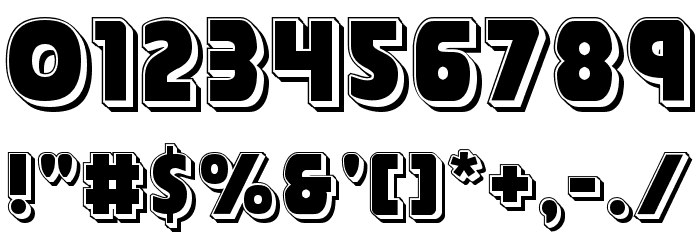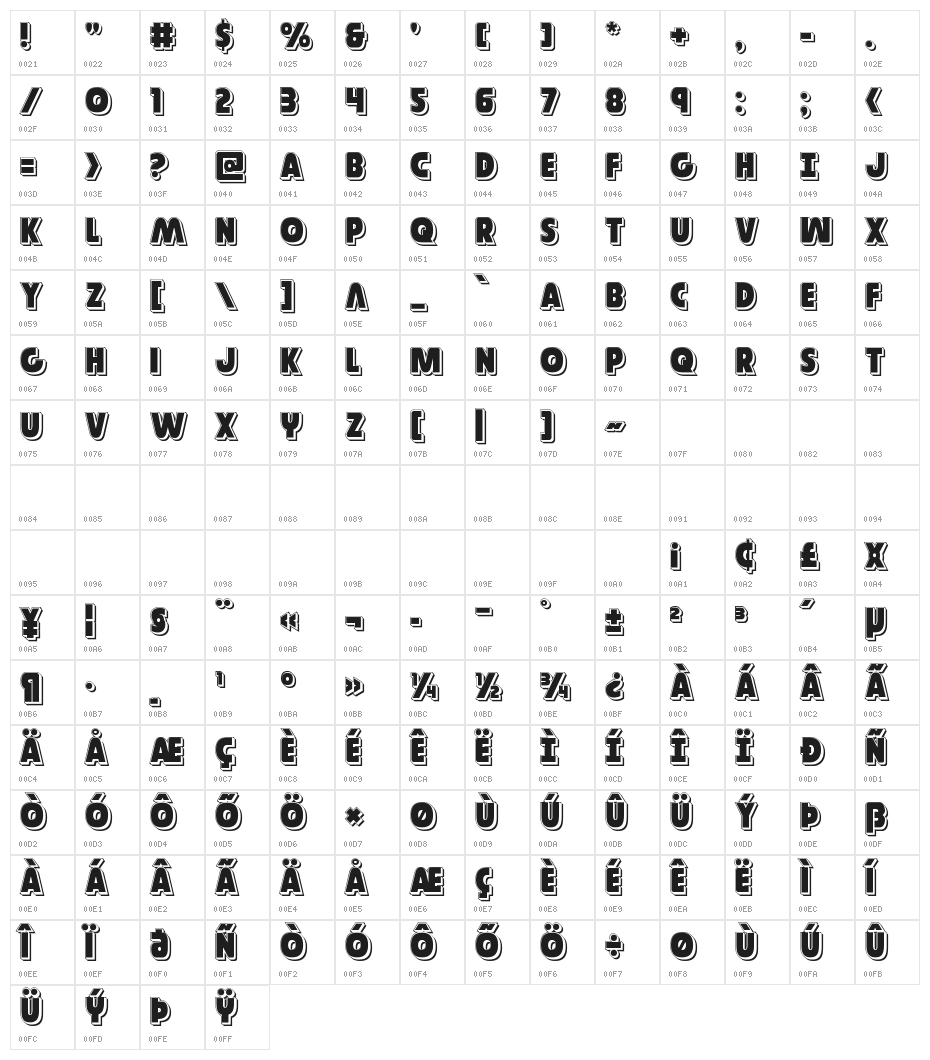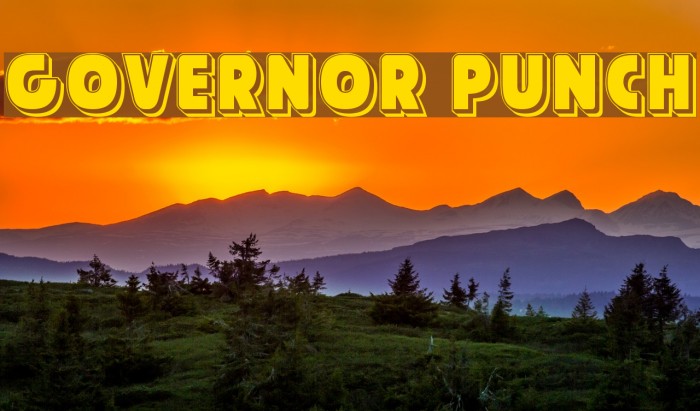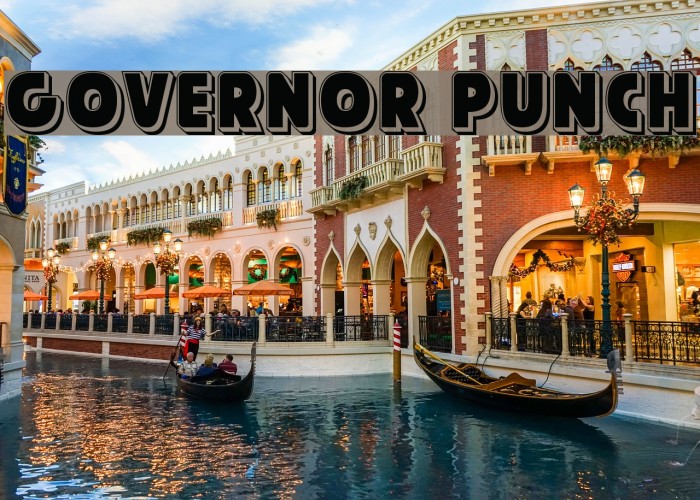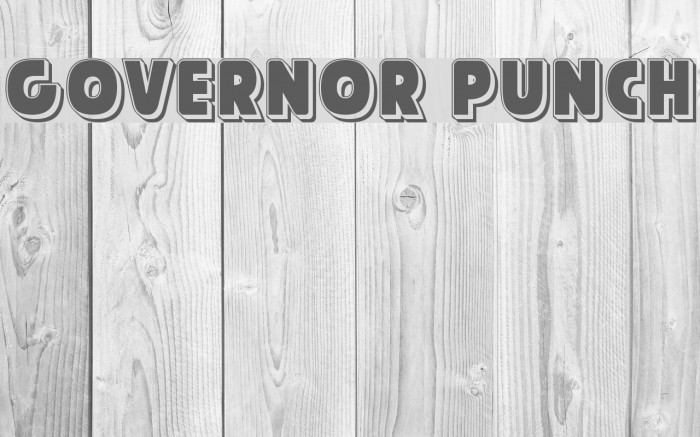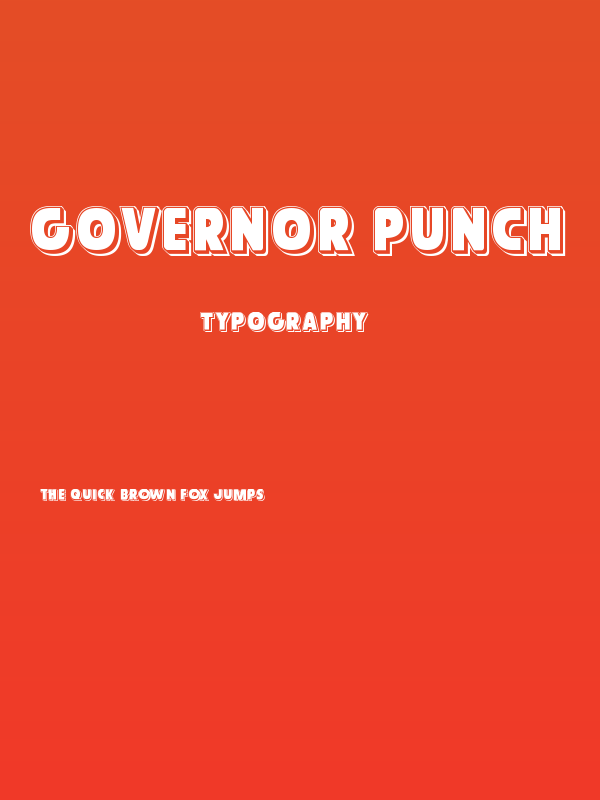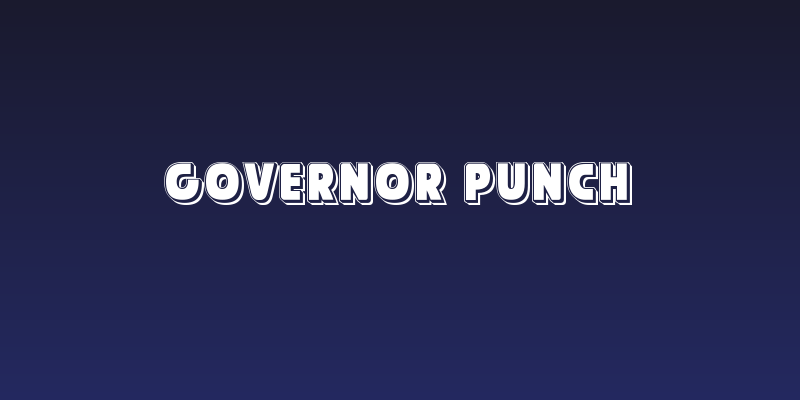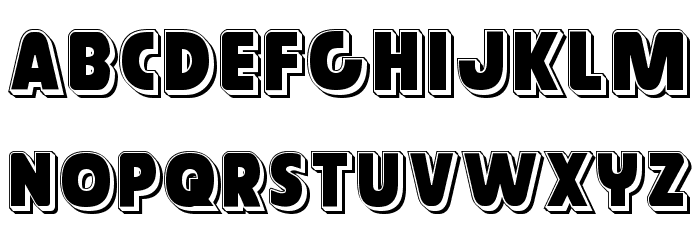
Governor Punch Font
Governor Punch Description
This bold and impactful font features a strong, three-dimensional appearance with a shadow effect that gives it a punchy, standout look. The letters are uppercase and have a thick, blocky structure, making them highly visible and attention-grabbing. The font's design includes a consistent outline that enhances its dimensionality, creating a sense of depth and boldness. The numbers and special characters follow the same stylistic approach, ensuring uniformity across all characters. This font is ideal for projects that require a strong visual impact and a modern, dynamic feel.
| Proposed Projects | Ideal for posters, headlines, logos, and any design needing a bold statement. |